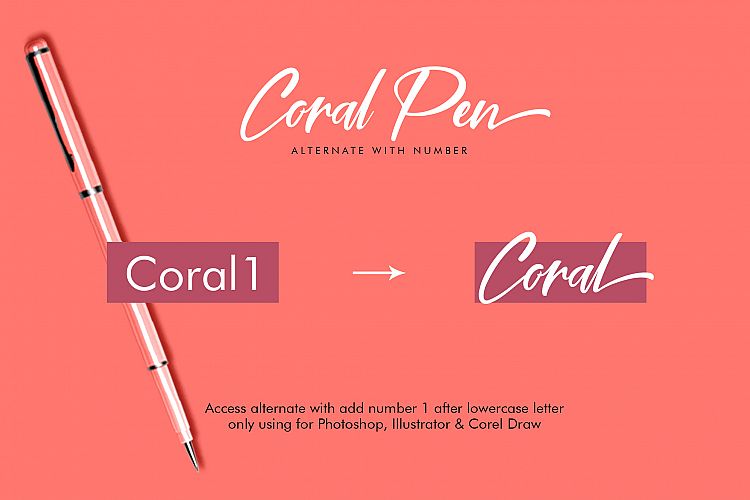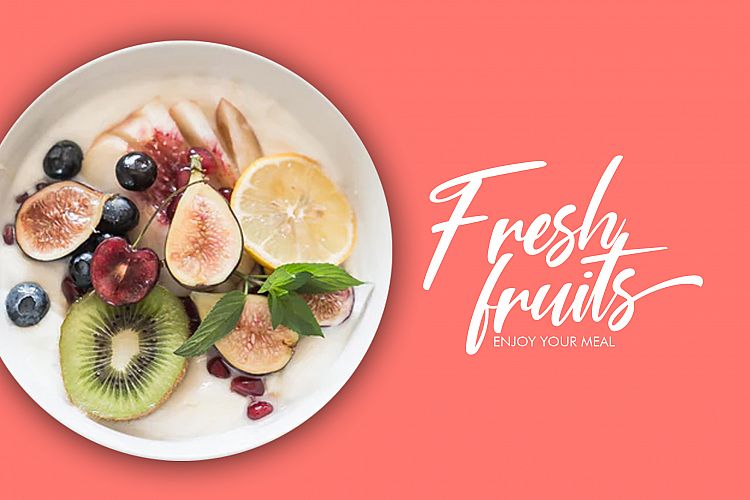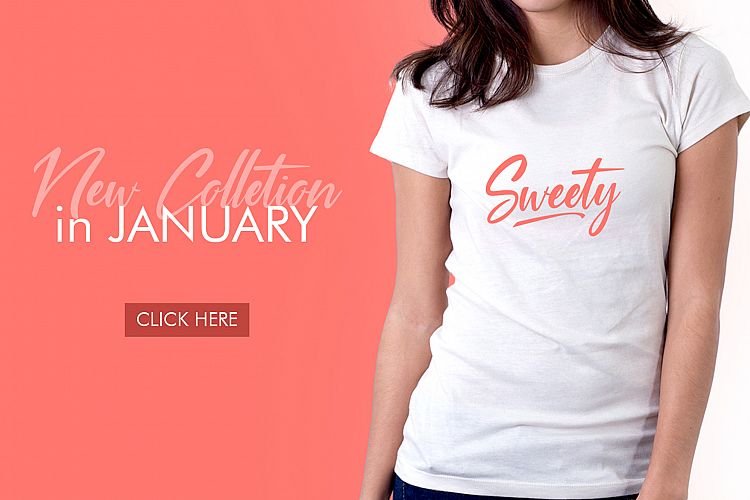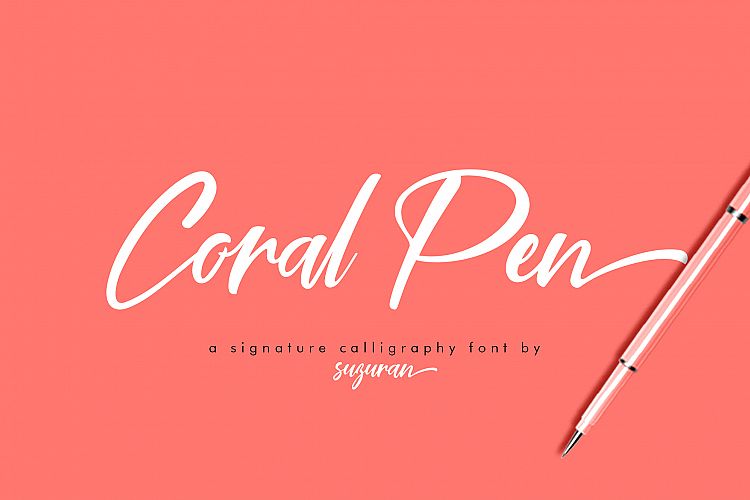
Coral Pen Script Font
Hi designer! A signature milli pen font with classy handwriting style. Introducing Coral Pen Font! It is designed by Suzuran. Coral Pen Script Font – a font that is very fresh and unique style handmade + bonus font, Night in Kansas for your project. Coral Pen script is perfectly suited to logo, stationery, poster, apparel, branding, wedding invitation, card, tagline, layout design, and much more.